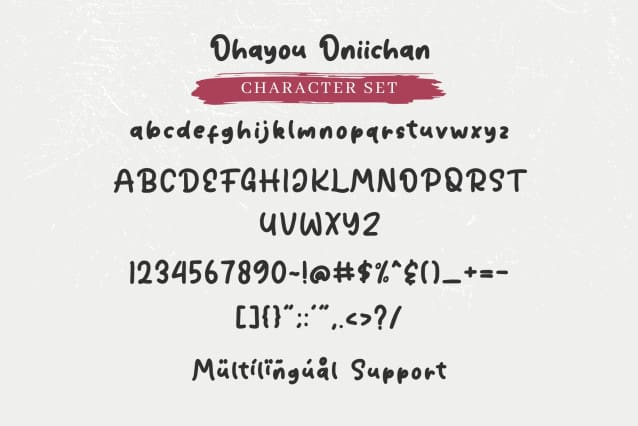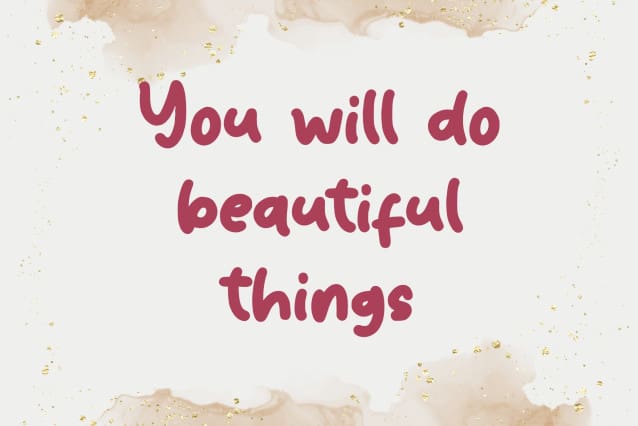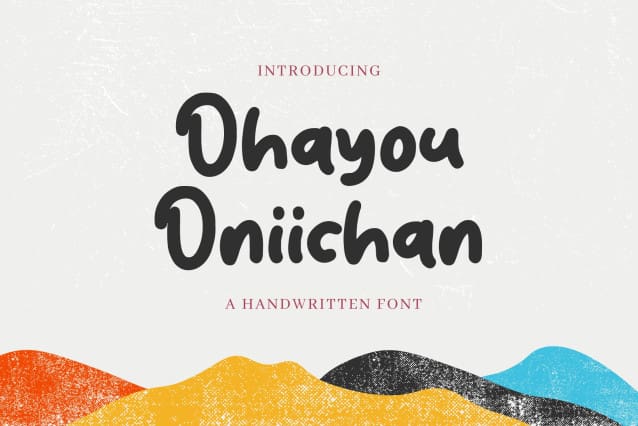
Ohayou Oniichan Font
Ohayou Oniichan – Handwritten Font, this font Is perfect for product packaging, product designs, label, photography, watermark, special events, or anything.